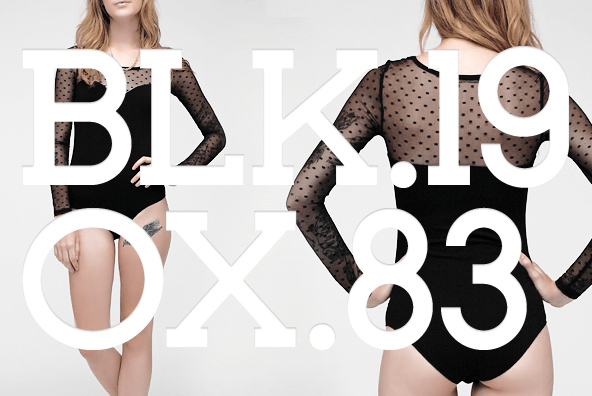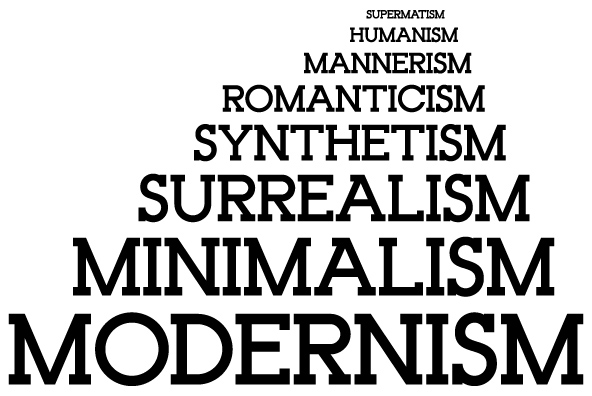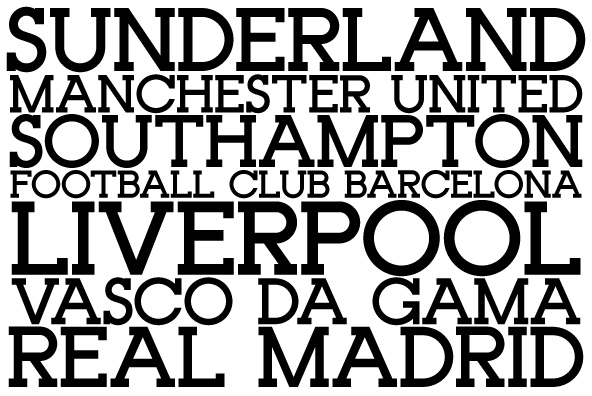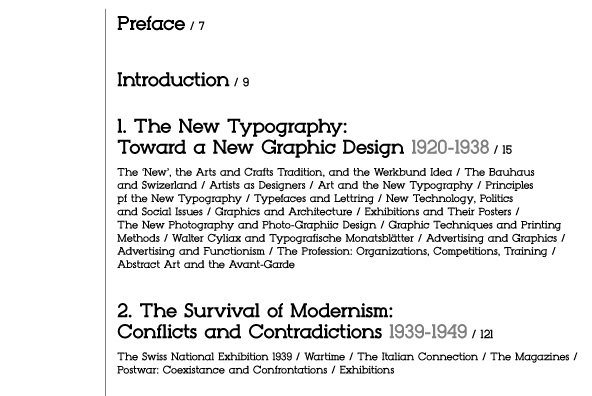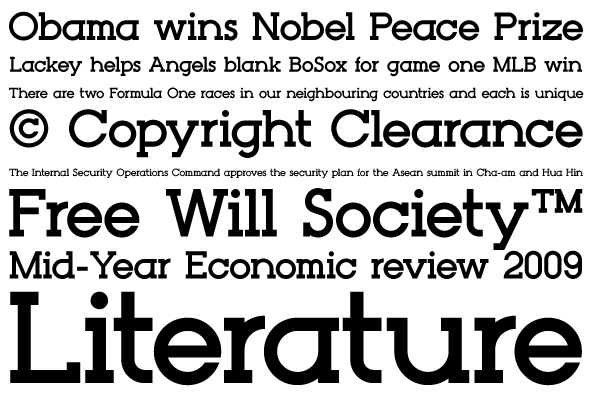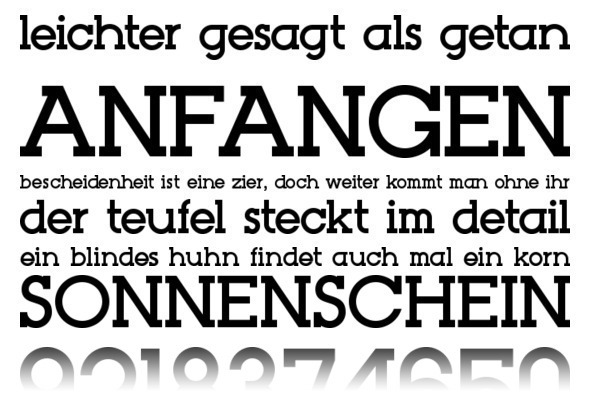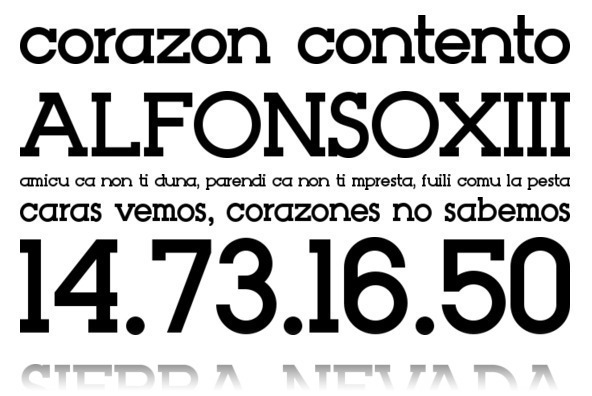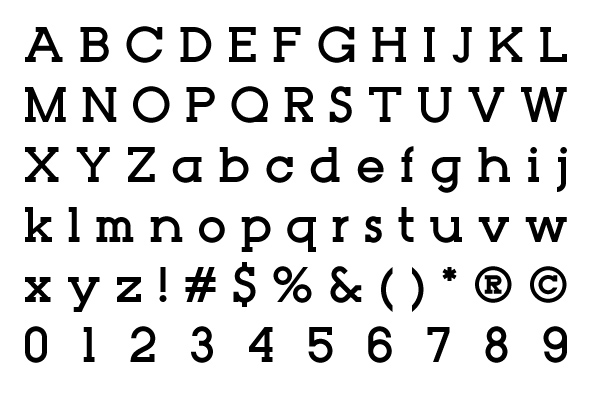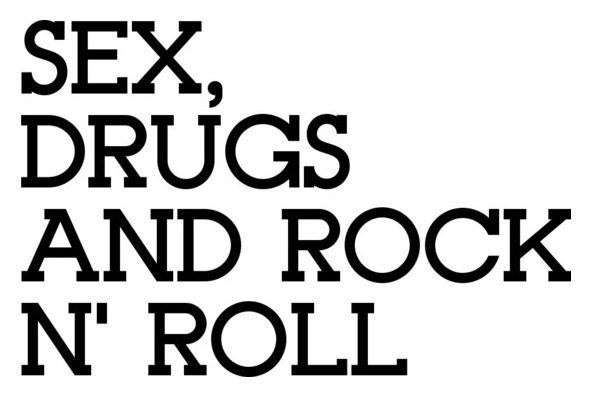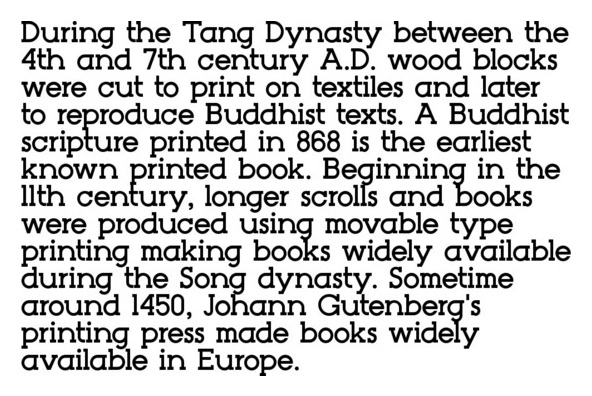
YWFT Lollop
YWFT Lollop is a retro and cleaned up typeface that can be used for many different projects. Comes in one weight that achieves a very athletic, young and slick vibe. Use it for headlines or content, whatever works for you.